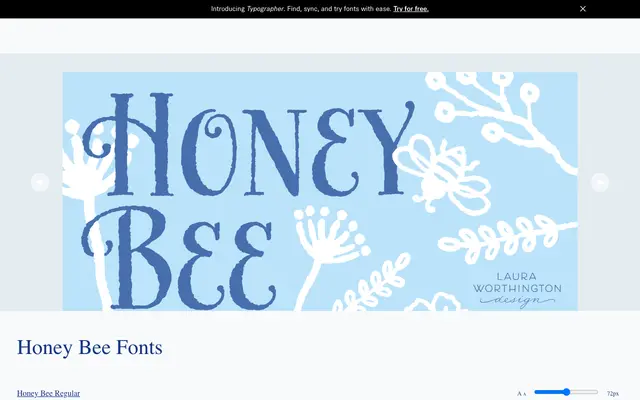
Honey Bee
An all-caps hand-lettered display face with multiple capital sets, swash alternates and 20 ornaments, aimed at food packaging, fantasy and children's design.
A single-weight all-caps display face drawn in a hand-lettered style, offering three sets of full-size capitals and two sets of smaller capitals to mix across headlines, titles and wordmarks. Twenty decorative ornaments are bundled alongside OpenType stylistic sets and titling alternates, all accessible without professional design software. Best suited to sweet or whimsical visual identities, packaging and editorial work for children's or food brands.
An all-caps decorative face with hand-lettered qualities, multiple swash and titling capital sets, and ornaments — firmly in the display category with no text use intended.